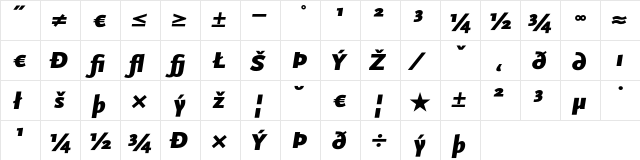
ScalaSans Exp Black Italic
Design Context for ScalaSans Exp Black Typeface
ScalaSans Exp Black is a composed and adaptable typeface that performs quietly and consistently across a wide range of design contexts. The slanted form adds forward momentum and visual energy.
Pro Tip: Use ScalaSans Exp Black for emphasis, pull quotes, and subheadings where its slanted energy can add rhythm to the layout.